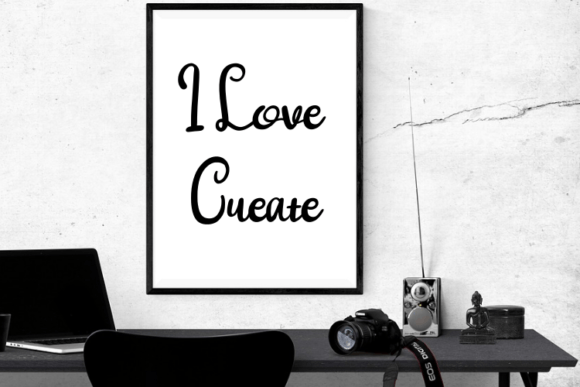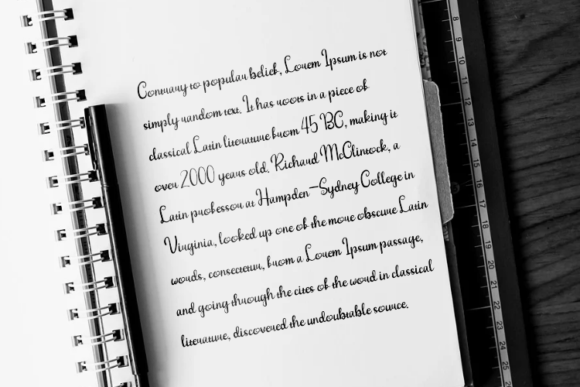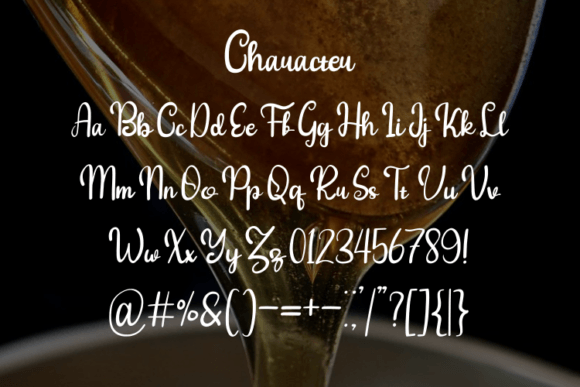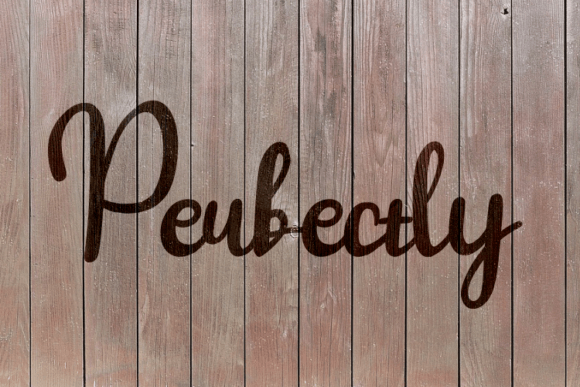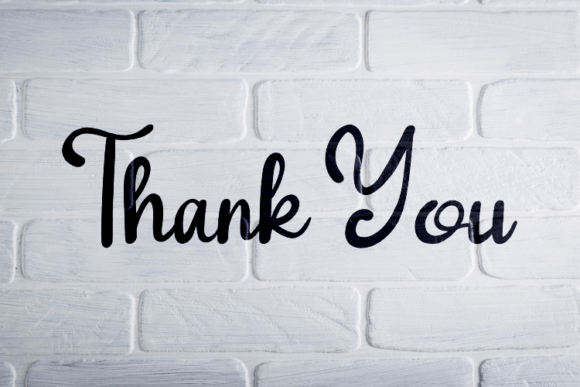
My Honey Font
About My Honey Font
**My Honey**: *Where Delicacy Meets Flowing Elegance*
My Honey isn’t just a font; it’s a delicate masterpiece of flowing elegance meticulously designed to breathe life into a wide pool of creative ideas. With its graceful script and well-balanced characters, this font effortlessly adds a touch of delicacy and sophistication to your designs, making it the perfect choice for bringing your most creative ideas to life.
What sets My Honey apart is its remarkable ability to seamlessly combine delicacy with flowing elegance. The font’s carefully crafted characters exude an air of grace and authenticity, making it an ideal choice for a wide range of designs that require a touch of refinement and beauty. My Honey is the font that can effortlessly enhance your creative ideas, ensuring they come alive with a distinct sense of style and sophistication.
My Honey strikes the perfect balance between modern aesthetics and timeless charm, making it a versatile and invaluable choice for projects that aim to engage and captivate.
In branding and logo design, My Honey adds a unique sense of character and elegance, setting your brand apart and making it unforgettable. It possesses the power to convey a brand’s attention to detail and values while infusing an element of flowing elegance.
For a wide range of design projects, from invitations to packaging and beyond, the font’s delicate characters enhance the visual appeal of your content, making it more captivating and memorable. Whether you’re working on stationery, labels, or any other creative endeavor, My Honey brings an air of delicate beauty and flowing elegance to your projects.
One of My Honey’s most remarkable qualities is its adaptability. It can transition seamlessly from a formal and polished tone to a more relaxed and charming one, making it suitable for a wide range of creative applications. Its ability to evoke both delicacy and flowing elegance ensures that it remains a cherished choice for designers and creators across diverse industries.
In summary, My Honey is more than just a font; it’s a design asset that masterfully combines delicacy with flowing elegance. Its unique blend of graceful script and authentic allure positions it as an indispensable tool for anyone seeking to infuse their creative ideas with a touch of style and sophistication. Embrace the delicacy and flowing elegance of My Honey, and watch your designs come to life with grace and artistic flair, making them shine in any context and captivating your audience with its exquisite presence.